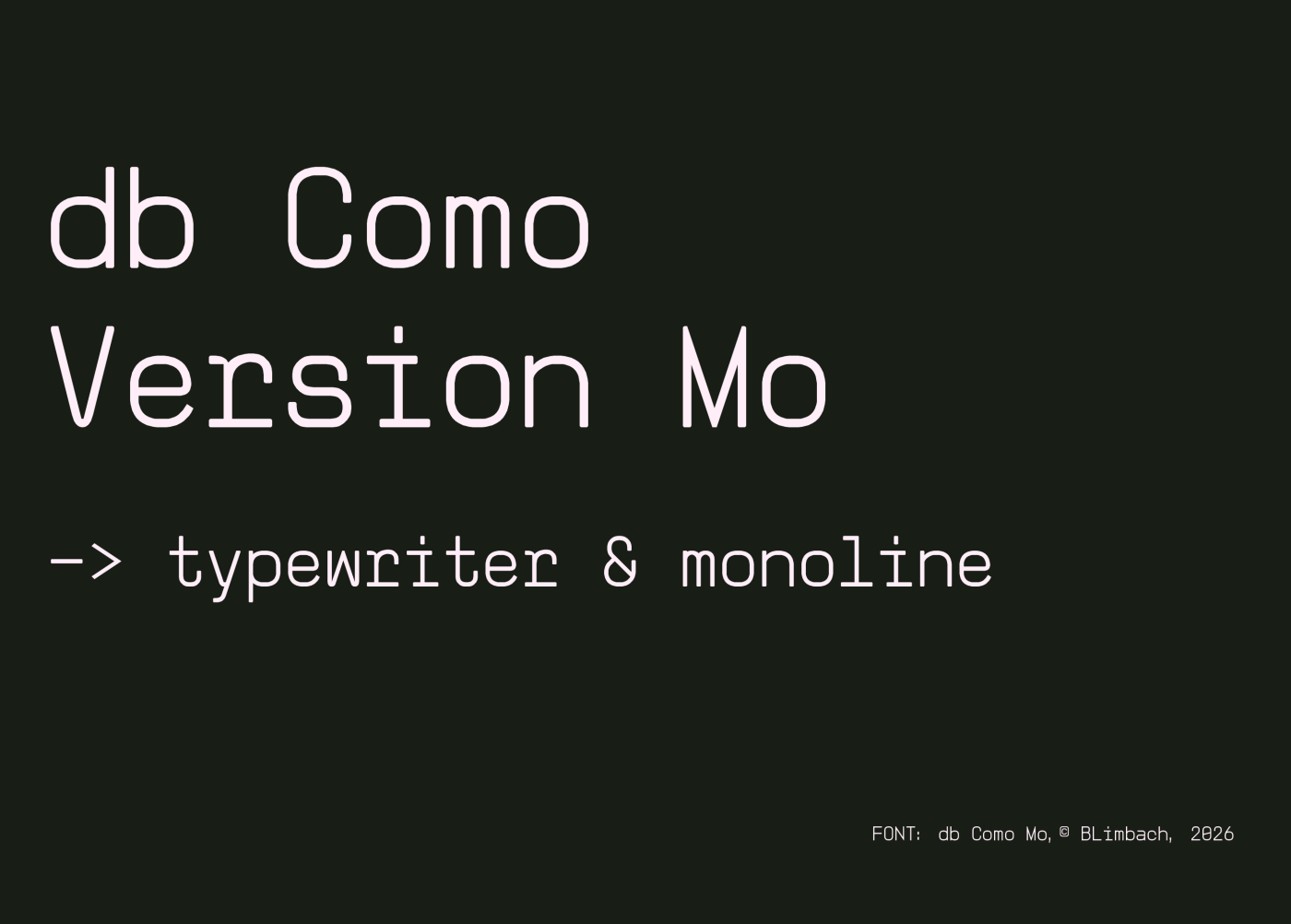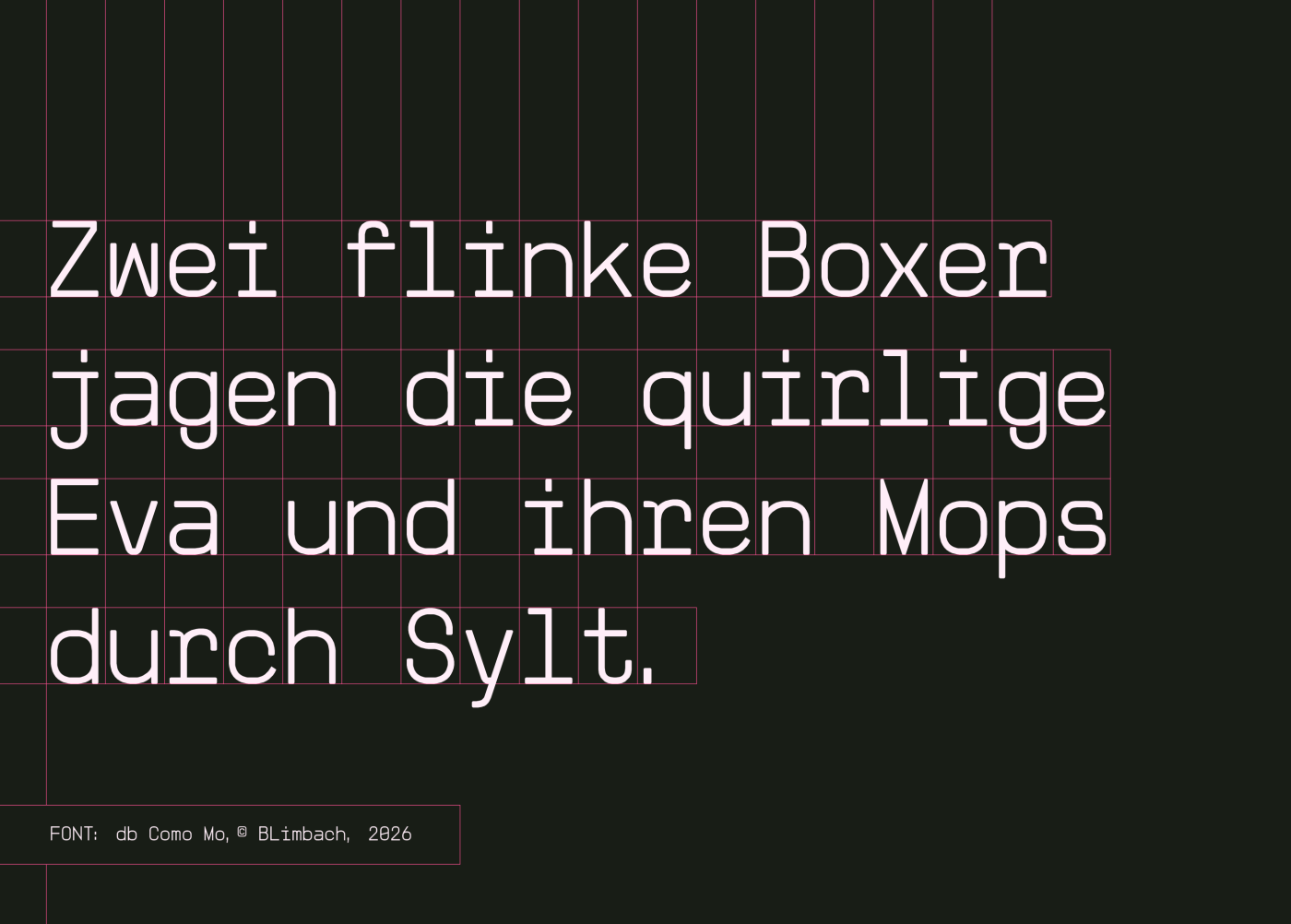
• New version of db Como Mono: Typewriter & Monoline,
so monomono ; )
The name db Como Mono would be just fine. It rhymes. The lack of optical correction (a little overshoot) of rounded letters is noticeable. Still a great work with numerous creative solutions. 10/10